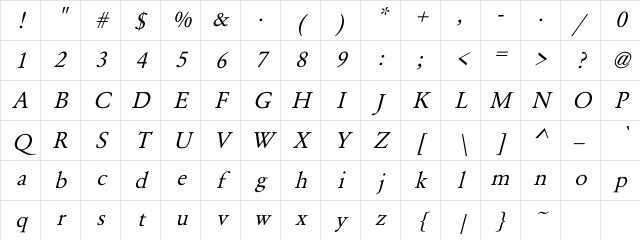
Smedley Italic Lite Italic Free Font
Smedley Italic Lite Italic
Complete Smedley Italic Lite Italic glyph index. Displaying only characters natively supported by Smedley Italic Lite Italic font.
Design Context for Smedley Italic Lite
Smedley Italic Lite is a composed and adaptable typeface that performs quietly and consistently across a wide range of design contexts. The slanted form adds forward momentum and visual energy.
Pro Tip: Use Smedley Italic Lite for emphasis, pull quotes, and subheadings where its slanted energy can add rhythm to the layout.